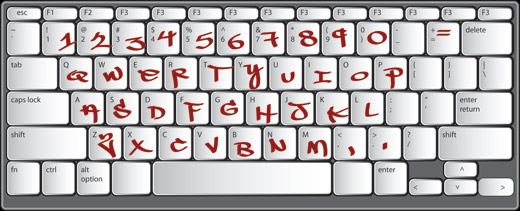
Dim Basics™
EXCLUSIVE! - All new Graffiti Font™
Easy to read & very identifiable as a street style dim basics is clean and stylish. All the basic glyphs are included. With this style you can achieve authentic yet non-threatening graffiti goodness.
Dim Basics Sample Graffiti Alphabet
Dim Basics Uppercase Letters